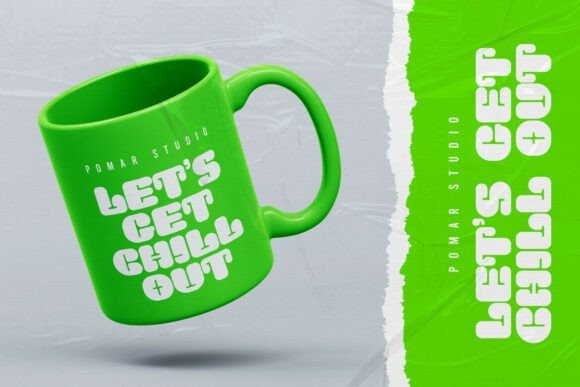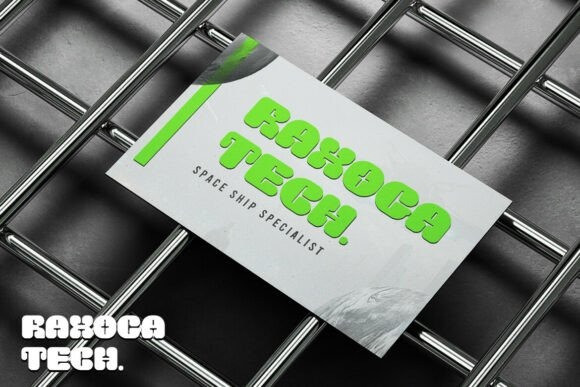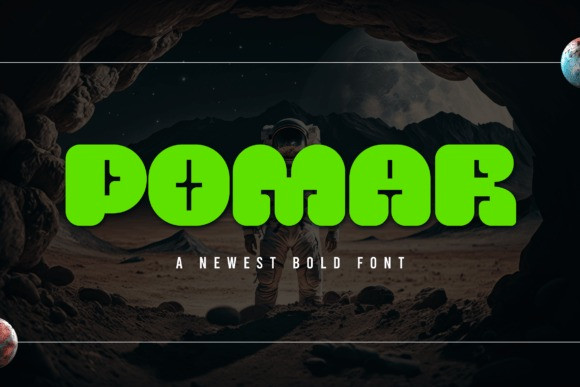
Pomar Display Font
Pomar Display Font, a modern and futuristic typeface that captures the essence of innovation and exploration. This striking font is perfect for movie posters and futuristic design projects, allowing you to create visually captivating graphics that resonate with audiences. With its sleek lines and contemporary aesthetic, Space Font – Pomar is more than just a font; it’s a design statement that elevates your work to new heights.
Crafted with versatility in mind, Space Font – Pomar includes a range of features such as ligatures, stylistic alternates, and swashes, enabling you to customize your typography for any purpose.